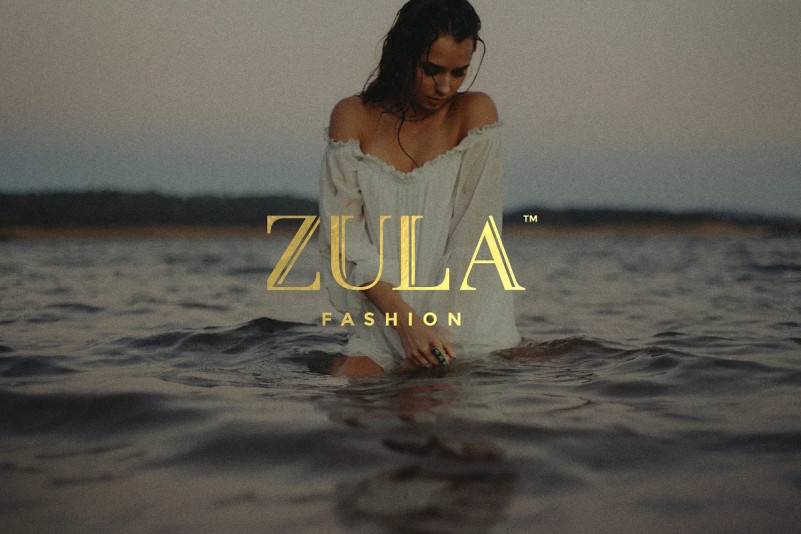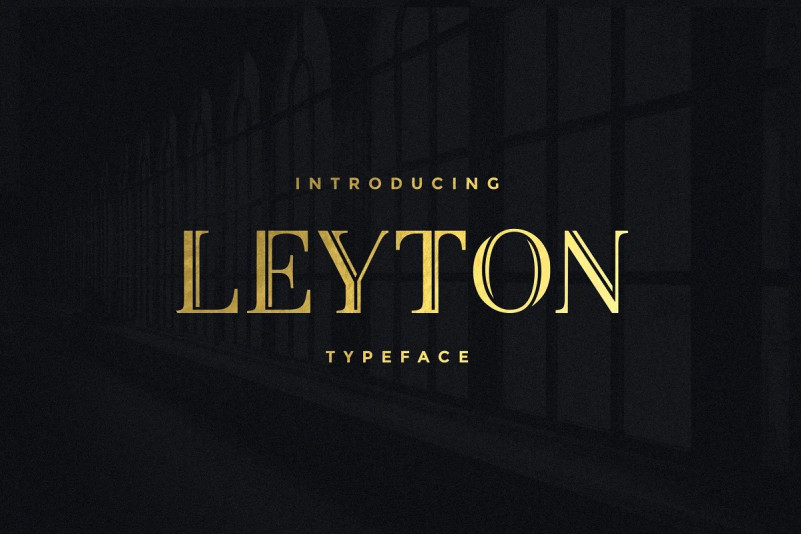
Leyton Font
Leyton Font is a unique twist on tradition, a modern serif font with an elegant charm.
As a modern take on a serif typeface, it creates a striking but subtle, highly unique look. It’s a beautiful typeface that’s perfect for sleek and elegant titles, headlines and even custom logotype designs. It also designed to be used in branding, editorial or packaging, giving a classy touch. As well as being a stylish text overlay onto any image, or a beautiful addition to a wedding invitation!
LeytonFont – A serif font containing upper and lowercase characters, numerals and a large range of punctuation.
Leyton Bold – This is a second version of Leyton, with a completely new set of both upper and lowercase letters. This bold version gives more impact, and helps it stand out on busier backgrounds and designs requiring a stronger text presence.
In the preview I’ve paired it with the free font Montseratte, but it works great with a whole host of typefaces! (Particularly Sans-serif!)